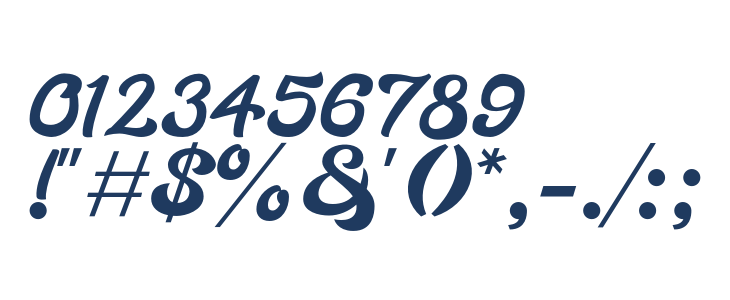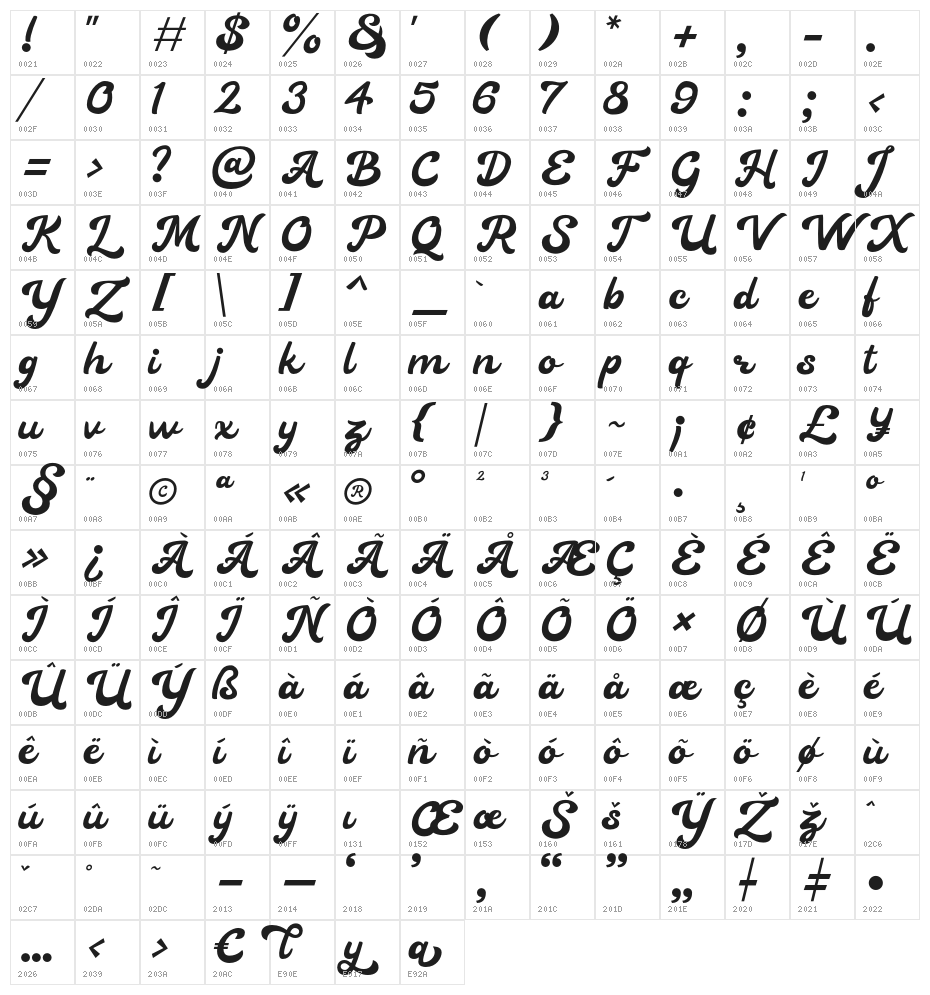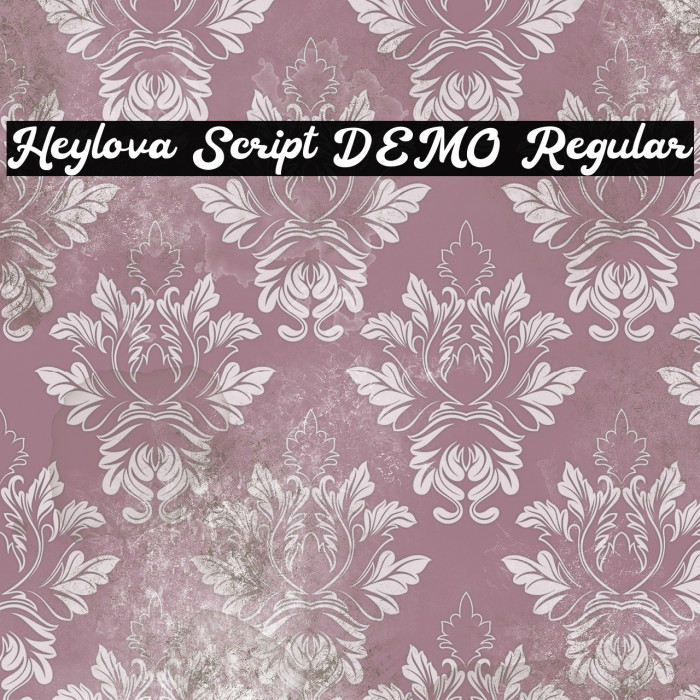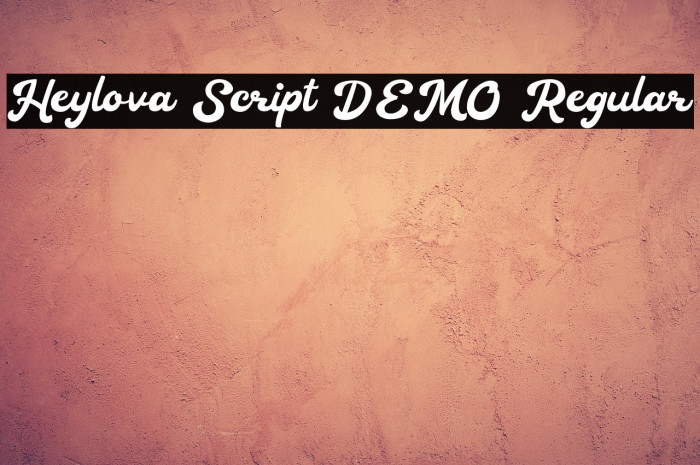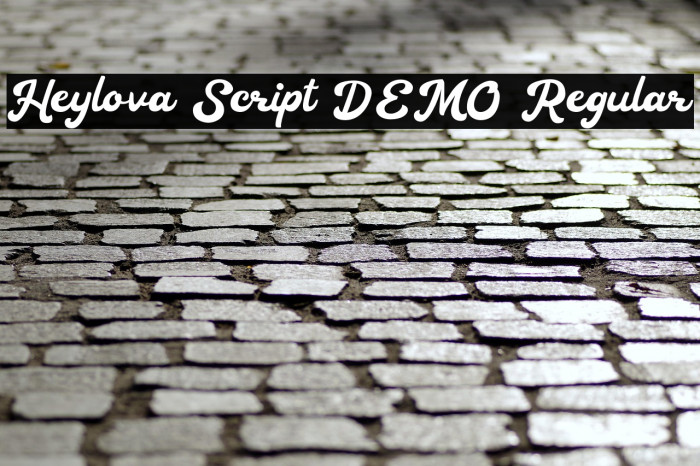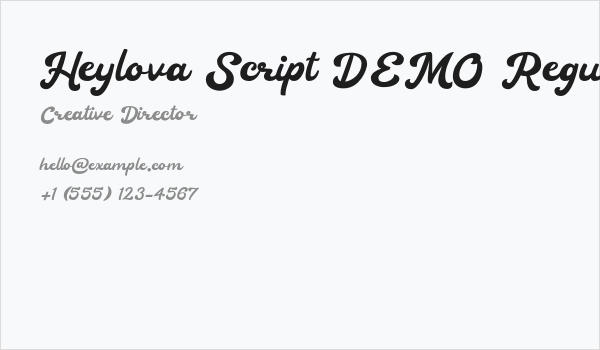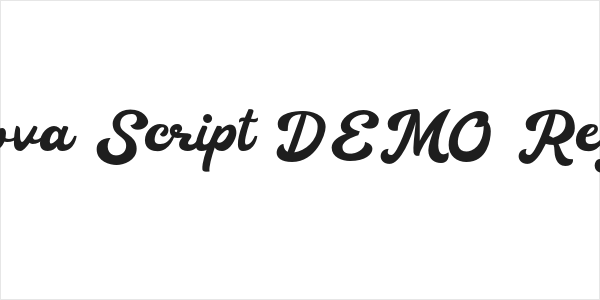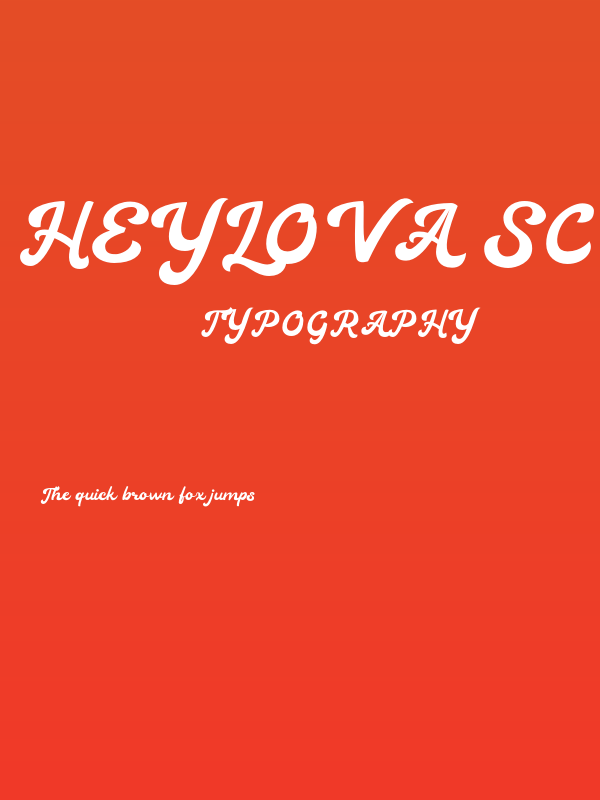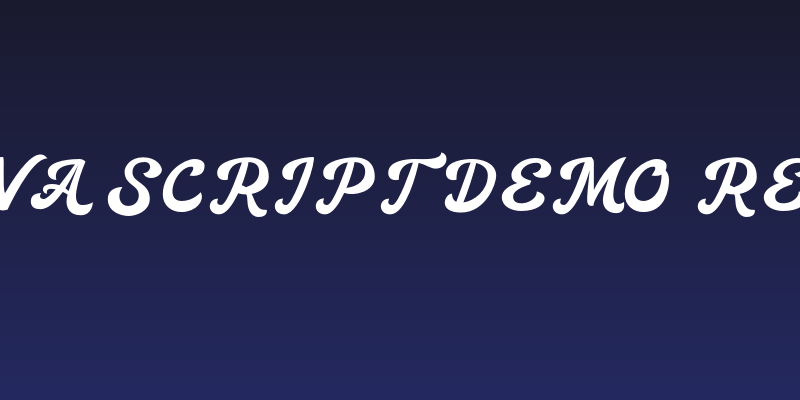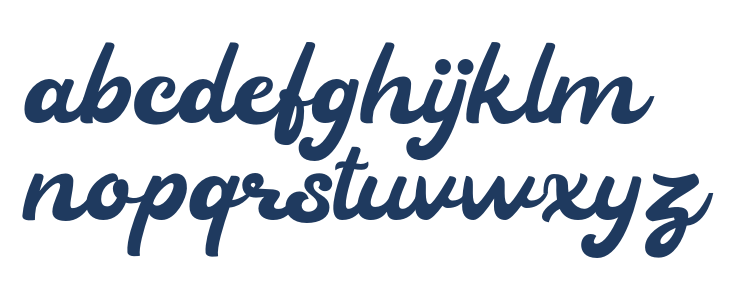
Heylova Script DEMO Regular Font
Heylova Script DEMO Regular Description
This font features a flowing, cursive style with smooth, connected strokes that give it a handwritten appearance. The uppercase letters are bold and elegant, with a slight slant that adds to the script-like quality. The lowercase letters maintain a consistent flow, enhancing readability while retaining a stylish flair. Numbers are well-proportioned and align seamlessly with the overall design. Special characters are crafted with the same attention to detail, ensuring they integrate harmoniously with the text. This font exudes a sense of sophistication and charm, making it ideal for projects that require a personal touch.
Use CaseLogos, Invitations, Greeting Cards
Proposed ProjectsIdeal for wedding invitations, greeting cards, branding, and logo design.